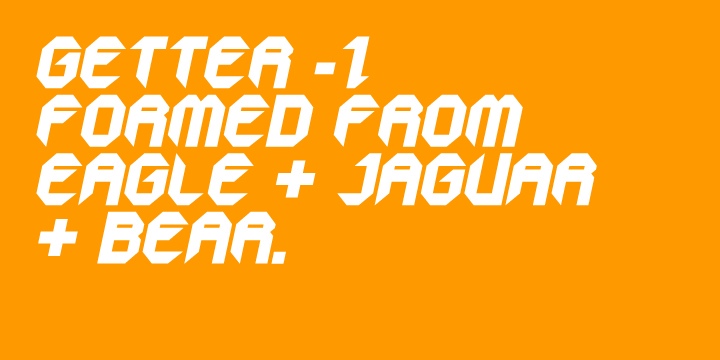
GetaRobo Font
GetaRobo Font is perfect for robotics company branding, artificial intelligence startups, futuristic technology marketing, sci-fi gaming interfaces, automation equipment labeling, mech anime merchandise, cybernetic research publications, and advanced engineering communications where robotic innovation and mechanical precision are emphasized.
What makes GetaRobo Font so exciting is its mechanical ability to embody the fusion of human creativity and robotic precision through angular letterforms that capture the essence of advanced automation while maintaining excellent digital readability. The engineered character design reflects the systematic efficiency and technological sophistication that defines cutting-edge robotics development.
The GetaRobo Font family includes light, regular, medium, bold, and condensed weights, with robotic-inspired decorative elements and mechanical ornaments that provide comprehensive tools for creating authentic robotics branding and futuristic technology design systems.
This innovative typeface represents the convergence of human design and machine precision, combining robotic functionality with contemporary tech industry requirements. The GetaRobo Font Free Download gives technology companies access to typography that communicates robotic expertise and mechanical innovation.
The font's angular character construction and systematic proportions create immediate associations with robotic engineering and automated systems development. Each letterform has been designed to evoke the precision and reliability that defines advanced robotics and artificial intelligence applications.
GetaRobo Font excels in creating cutting-edge brand identities that inspire confidence in robotic capabilities and technological advancement. The typeface's mechanical character makes it ideal for robotics manufacturers, AI development companies, and automation solution providers targeting tech-forward markets.
From industrial robot producers to consumer AI devices, this font brings technological credibility that resonates with audiences fascinated by robotic innovation and mechanical engineering excellence. The versatile design maintains its robotic character across both traditional technical documentation and modern digital technology platforms.